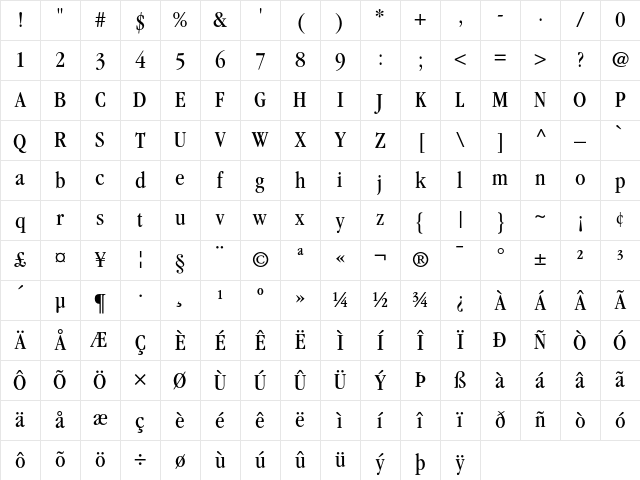
ITC Garamond Book Condensed
Style: Book Condensed
Complete ITC Garamond Book Condensed glyph index. Displaying only characters natively supported by ITC Garamond Book Condensed font.
Design Context for ITC Garamond
ITC Garamond is a composed and adaptable typeface that performs quietly and consistently across a wide range of design contexts. Its narrow stance lets it pack a punch even in space-constrained designs.